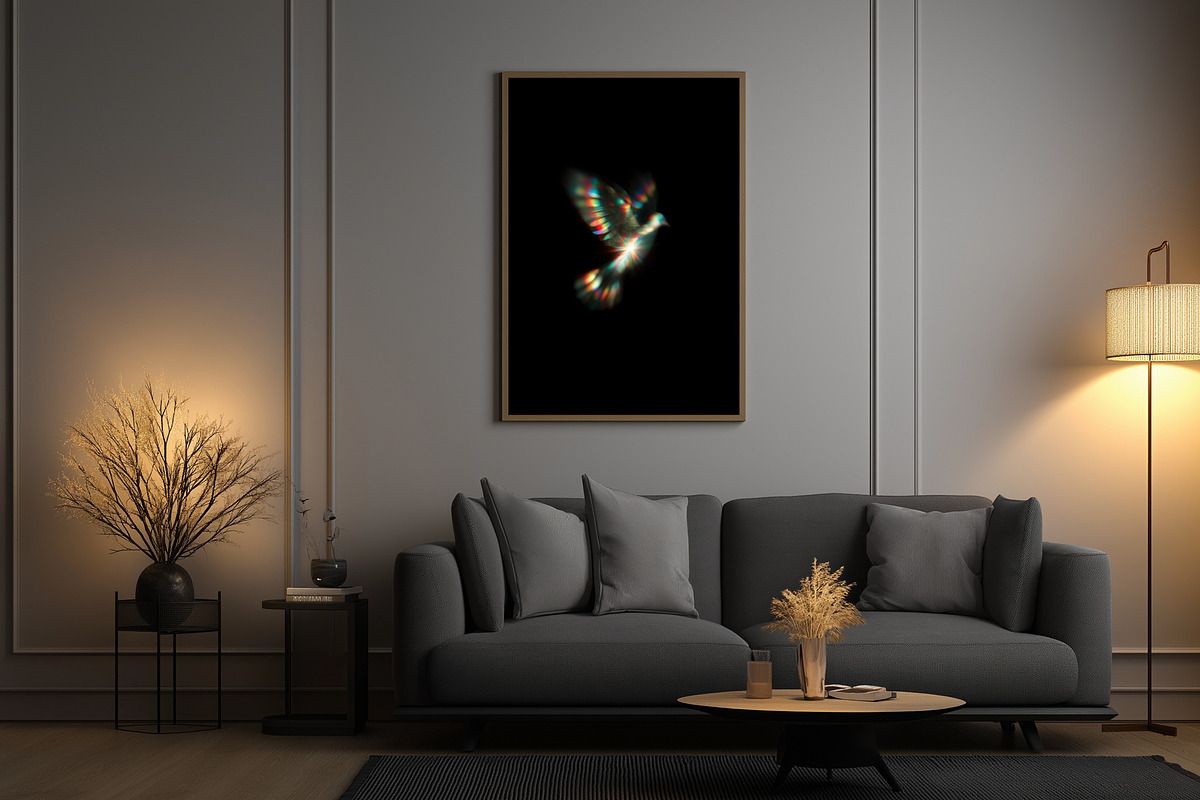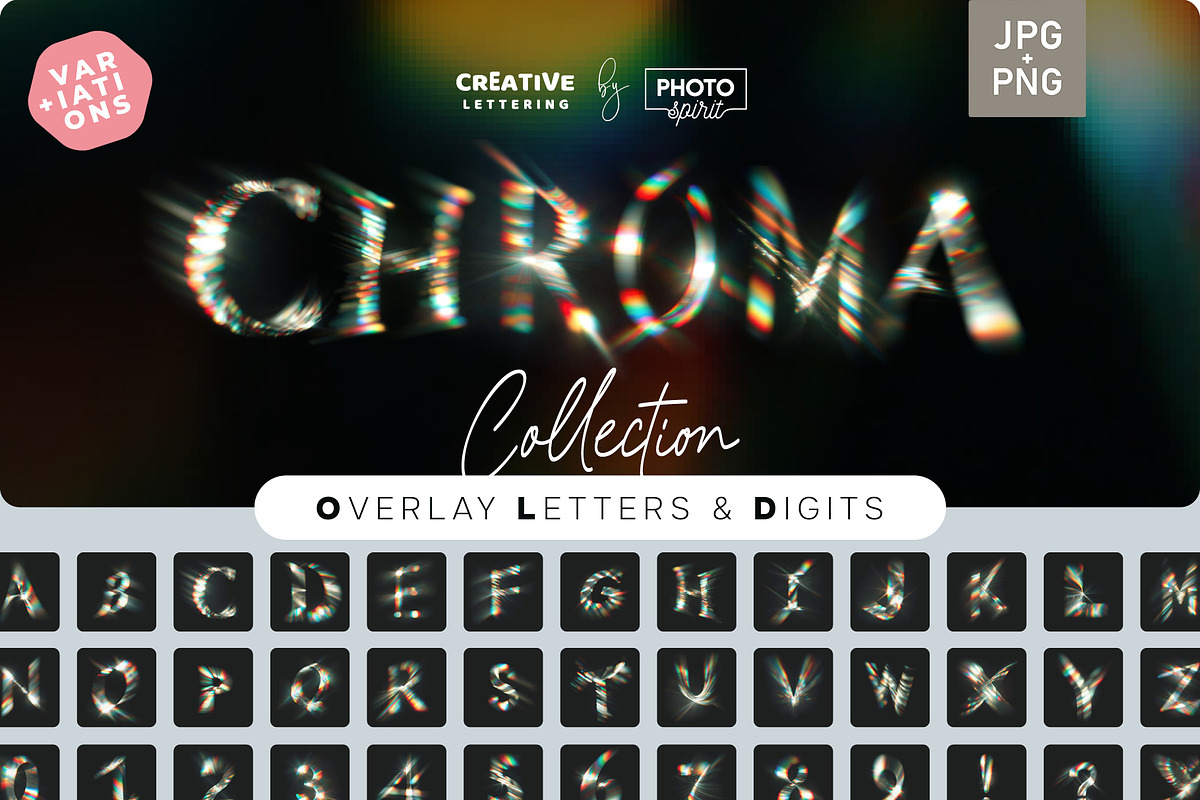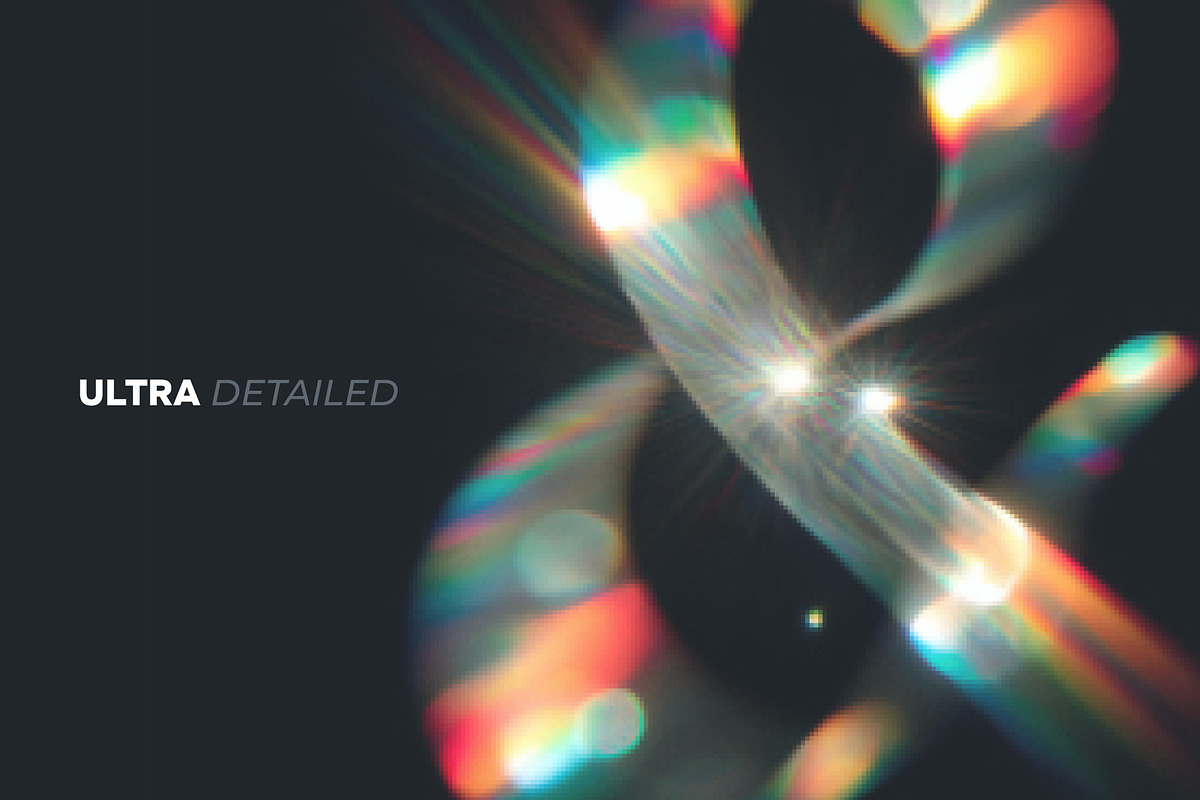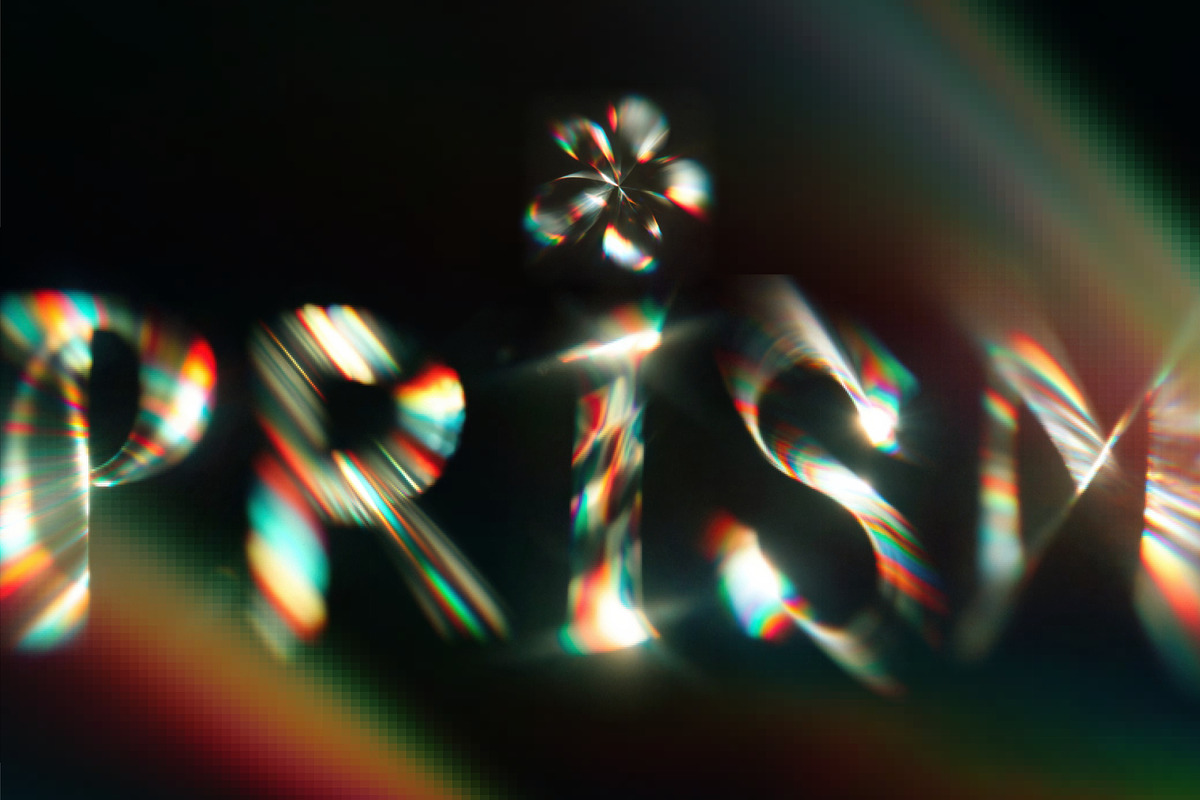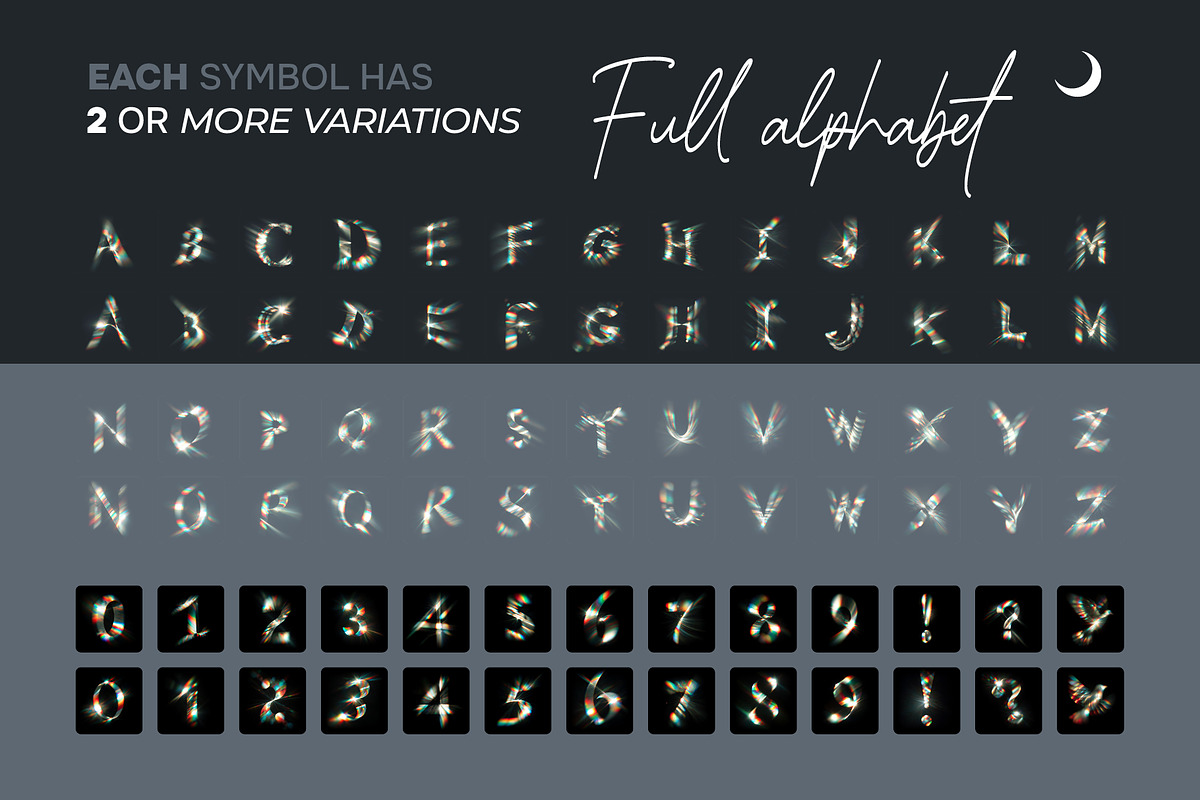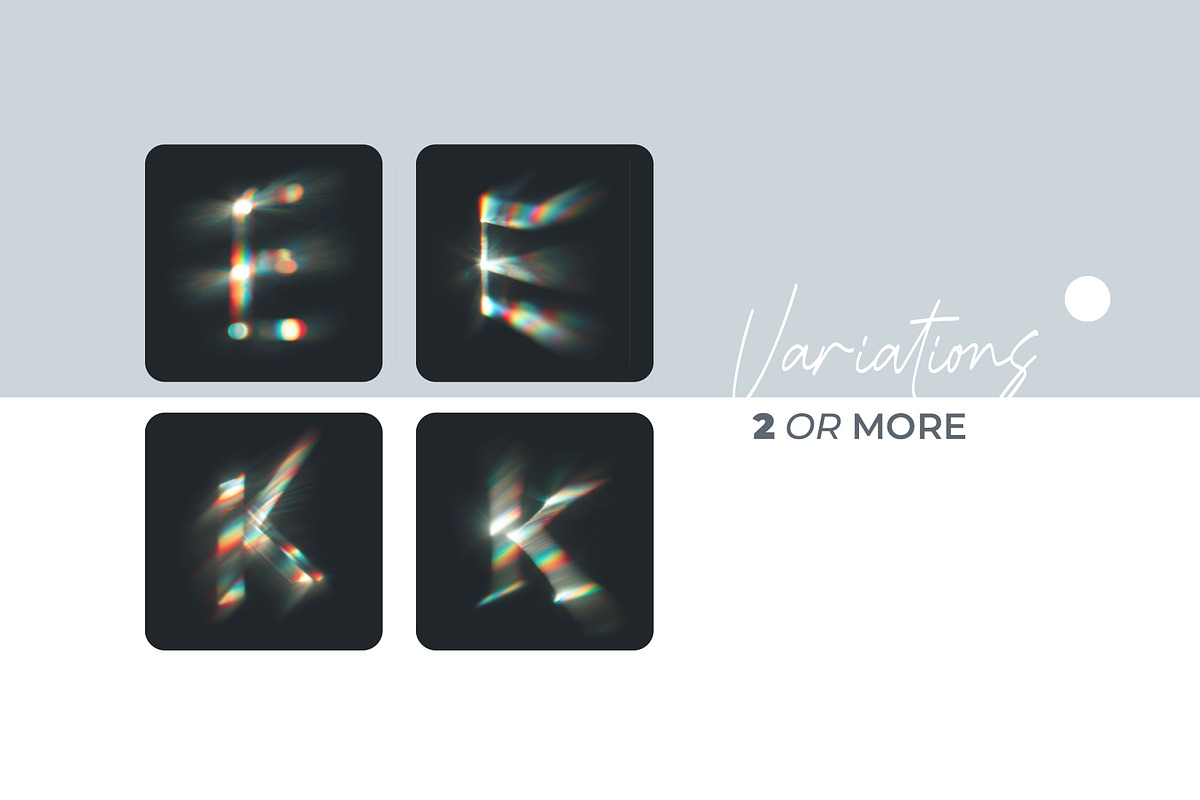
Chroma Light Letters Overlays
Elevate your designs with the Chroma Light Letter Overlays , a dazzling collection of alphabet letters infused with vibrant gradient effects. Each letter is meticulously crafted to capture the smooth transitions and radiant hues of chromatic lighting, making it perfect for adding a dynamic and colorful touch to your projects.
Whether you're designing for social media, branding materials, posters, or personal artwork, this set will infuse your creations with a sense of energy and modernity. The overlays are versatile, easy to use, and compatible with various design platforms, ensuring seamless integration into any project with professional results.
Complete Alphabet & Symbols: Includes uppercase letters, numbers, and essential symbols for all your design needs.
Multiple Gradient Variations: 2–5 unique gradient styles per letter, offering flexibility and creative options.
Realistic Chroma Effects: Captures the smooth, flowing gradients of chromatic light for bold and eye-catching designs.
Graphic Designers: Add a vibrant, gradient-inspired touch to logos, posters, and branding projects for a modern aesthetic.
Creative Professionals: Incorporate chroma gradients into album covers, merchandise, or promotional materials for a striking visual impact.